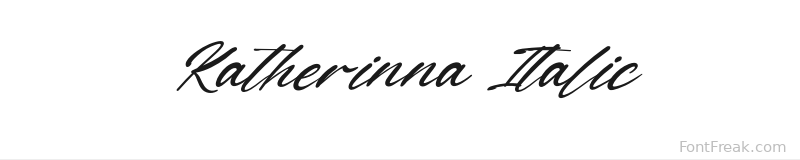
Katherinna Italic
Katherinna Italic, crafted by Kong Font, is a captivating handwritten typeface that exudes elegance and sophistication. This font features fluid, cursive strokes that gracefully connect to create an inviting and personal touch. The stroke weight is relatively consistent, providing a harmonious flow throughout the characters, while the subtle contrast adds depth and dimension, making it visually appealing. The spacing between letters is carefully balanced, ensuring readability without sacrificing style, making it an excellent choice for various design projects.
Ideal for use in wedding invitations, Katherinna Italic brings a romantic and whimsical flair to any celebration. Its charm also makes it suitable for crafting eye-catching movie posters, where the script can evoke emotion and intrigue. Additionally, this font shines in restaurant menus, imparting a touch of sophistication that enhances the dining experience. Content creators looking to add a personal touch to their blogs or social media posts will find this font particularly effective in capturing attention and creating a memorable visual identity.
Targeted towards graphic designers, small business owners, and content creators, Katherinna Italic is versatile enough to cater to a wide audience. Its freeware license allows for easy access and use, making it a valuable addition to any designer's toolkit.
What sets Katherinna Italic apart is its unique blend of elegance and approachability. The fluidity of the strokes adds a personal touch, while the overall design maintains professionalism. This balance makes it a standout choice for anyone looking to create beautiful, impactful designs. For those interested in enhancing their creative projects, the Katherinna Italic font free download is a fantastic opportunity to explore this exquisite typeface without any constraints.